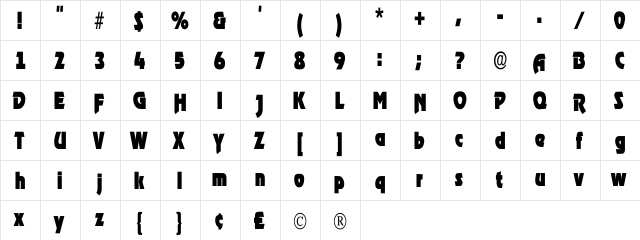
RoostHeavy Cn Regular Font Preview
RoostHeavy Cn Regular
RoostHeavy Cn Regular Font Details
Design Context for RoostHeavy Cn Typeface
RoostHeavy Cn offers clean, dependable letterforms without strong stylistic allegiance, making it a practical choice for designers who need flexibility.